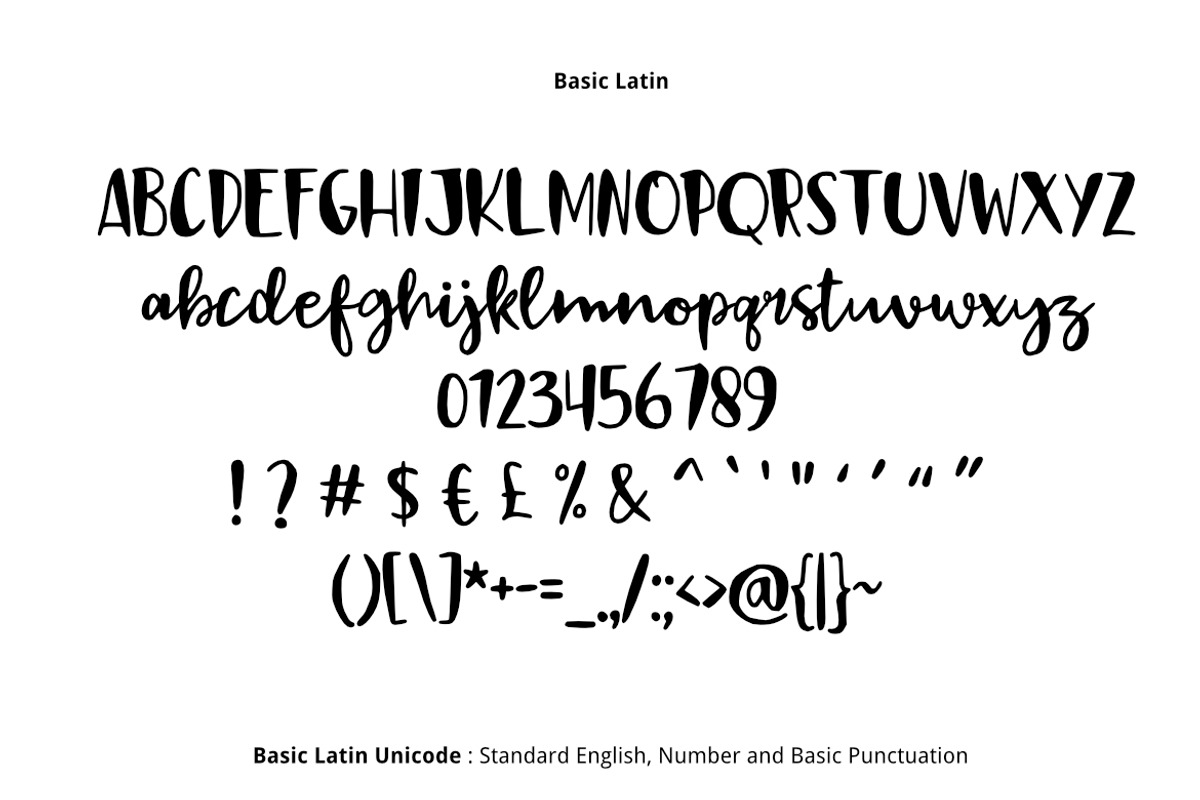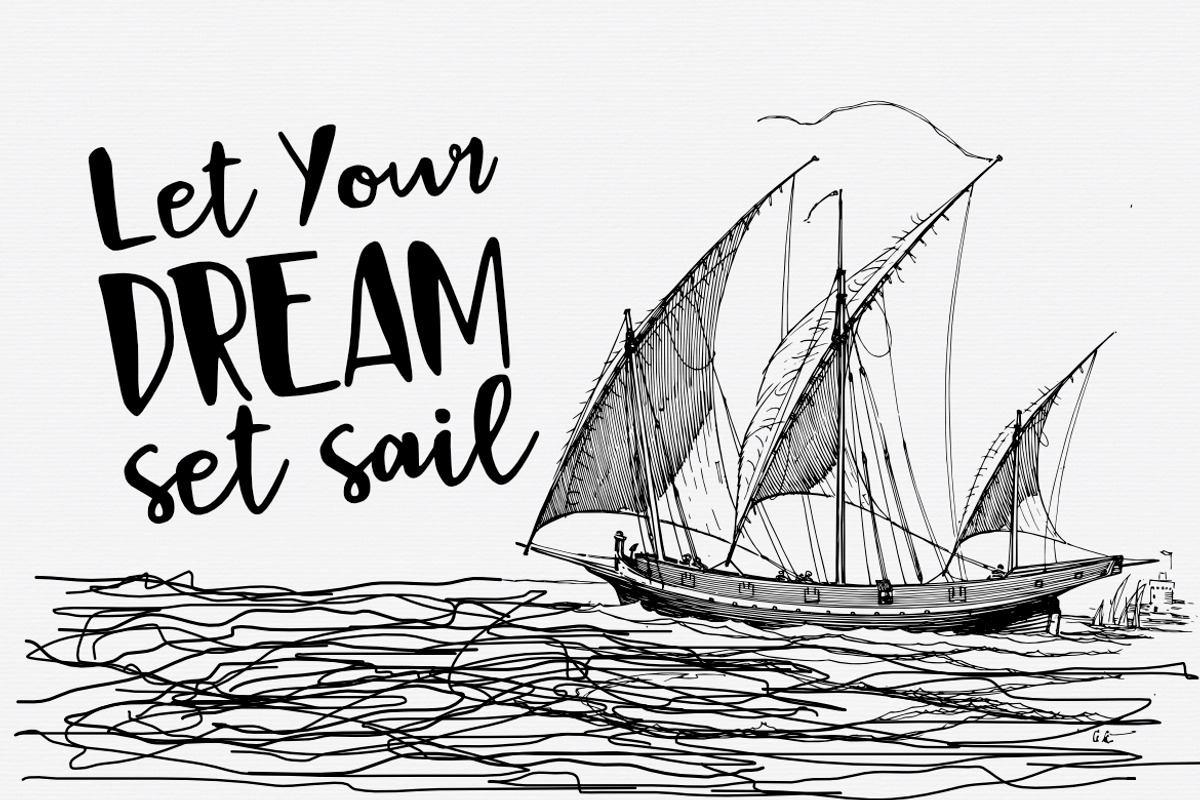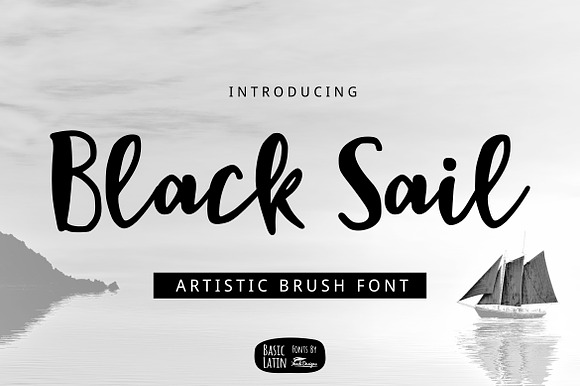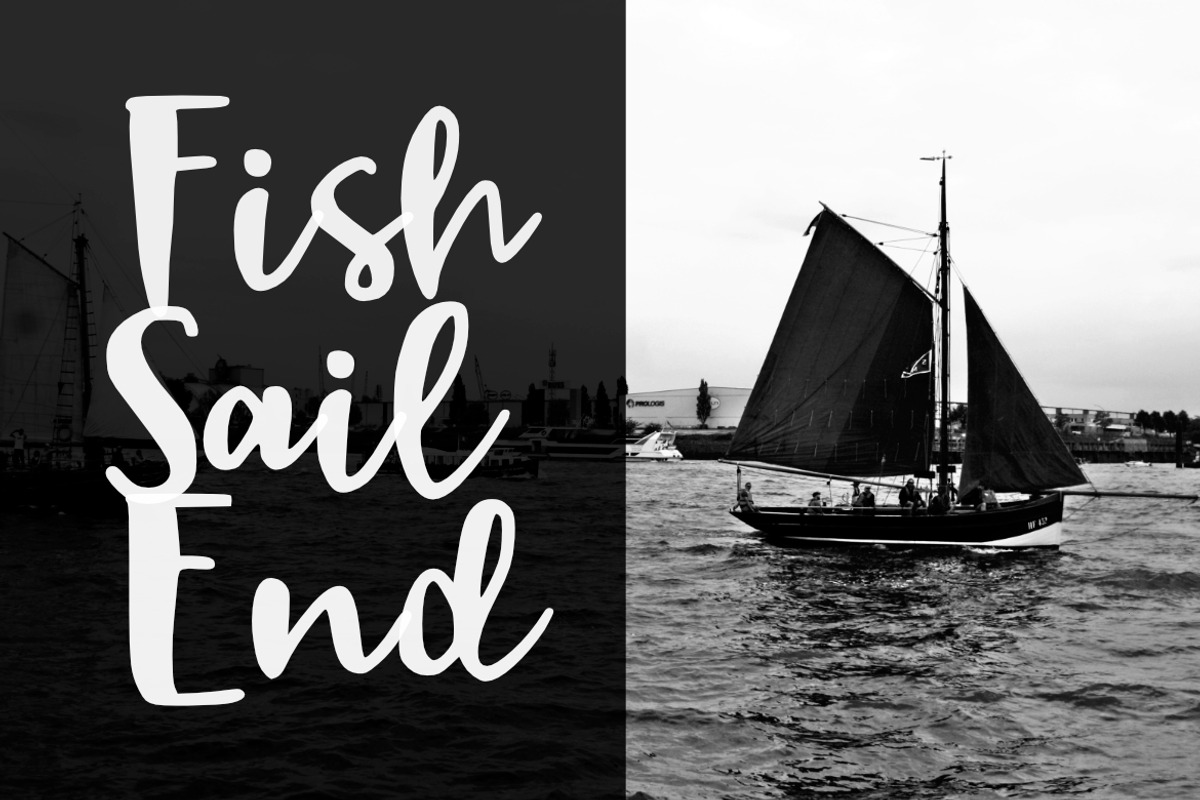
Black Sail Brush Font
Simple artistic brush script font , suitable for many project children book, quotes, logo , heading , title etc.
Black Sail Brush Font by YandiDesigns fits naturally into Branding, posters, packaging, typography.